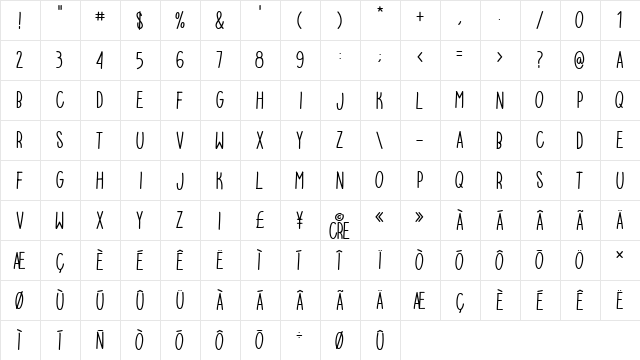
easy cre Regular Font Preview
easy cre Regular
Design Context for easy cre Typeface
easy cre takes a measured approach to typography — its balanced proportions and neutral character make it a reliable workhorse for both digital and print work.